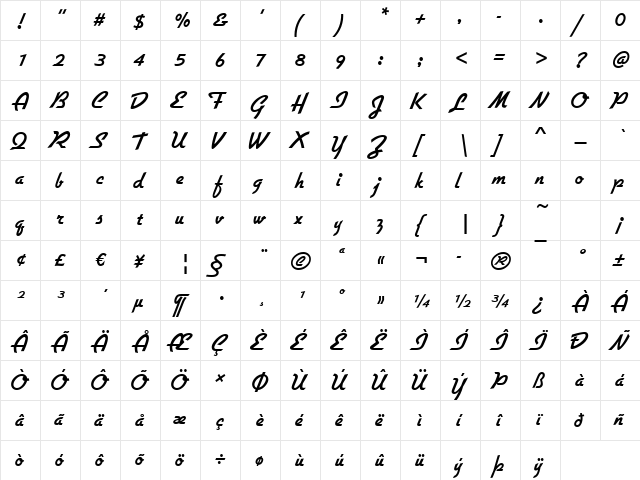
Giulio Bold
Design Context for Giulio Typeface
Giulio is a composed and adaptable typeface that performs quietly and consistently across a wide range of design contexts. The heavy weight commands attention and anchors typographic hierarchies.